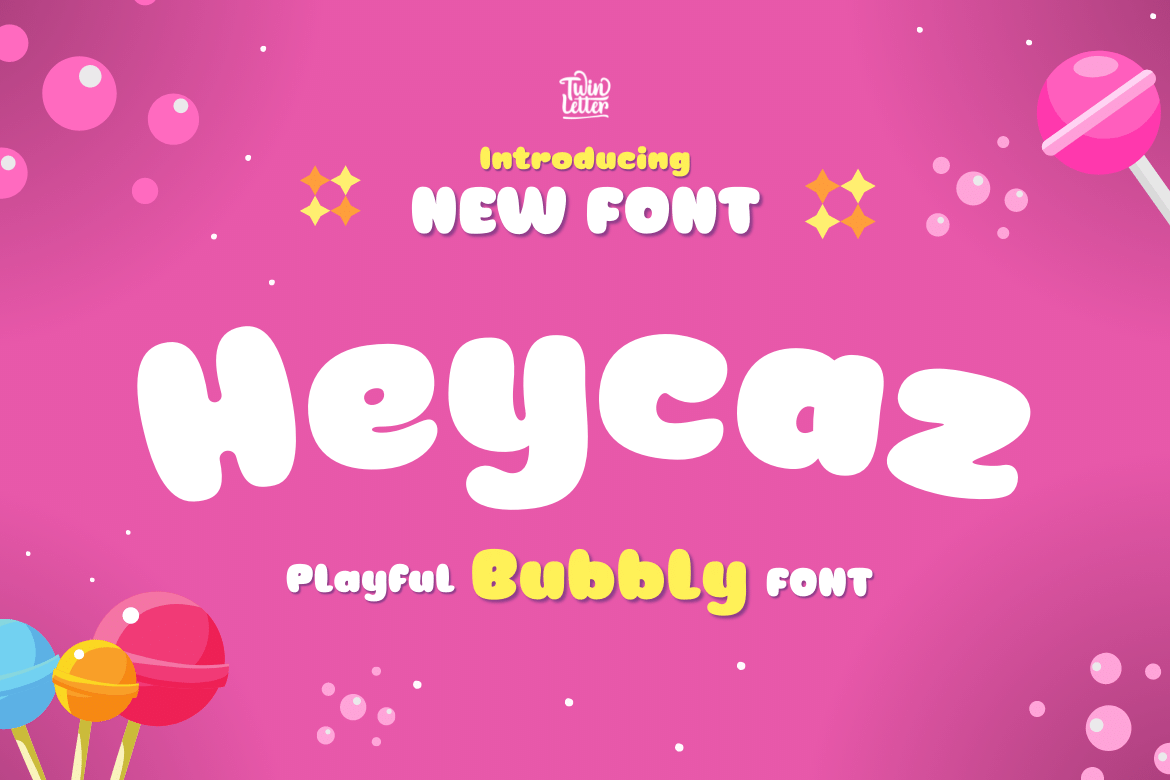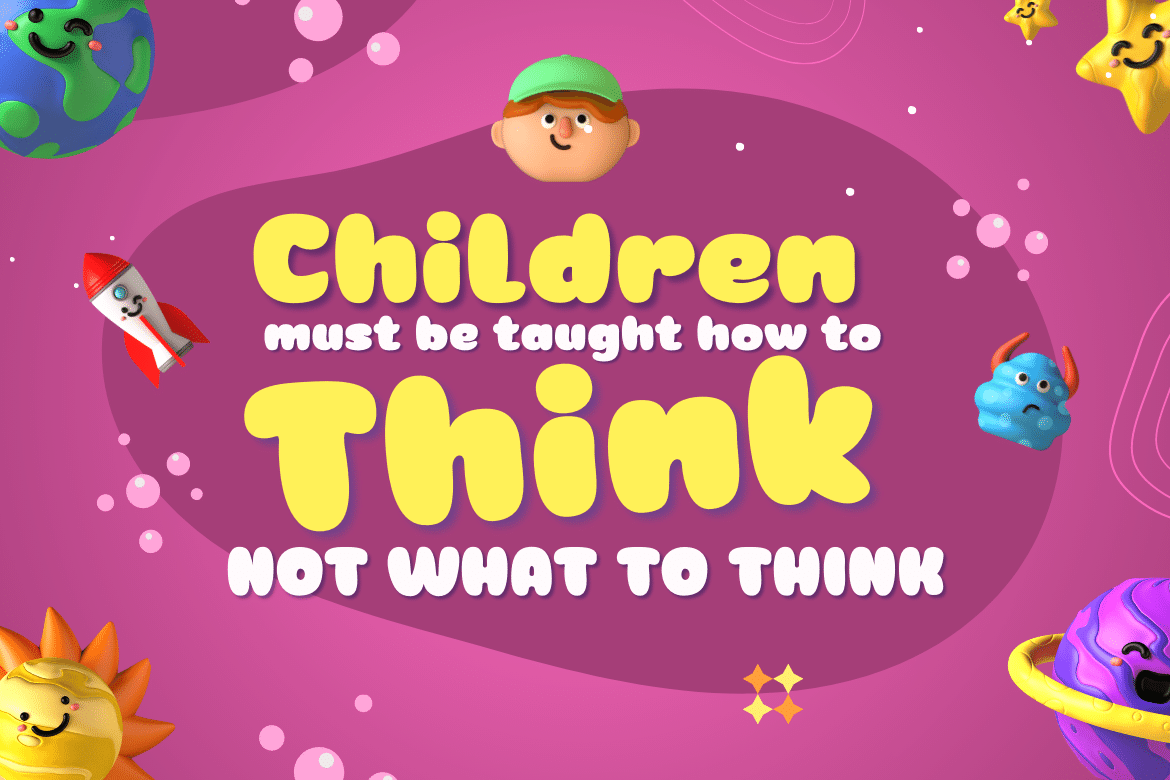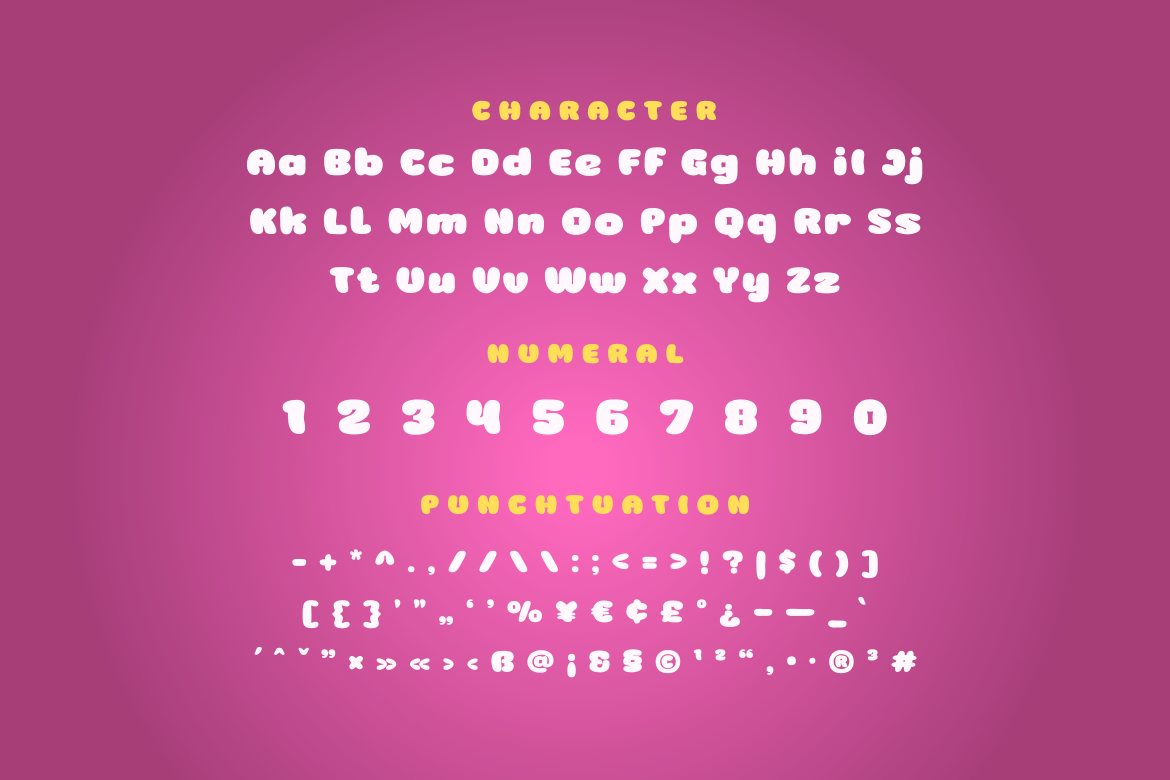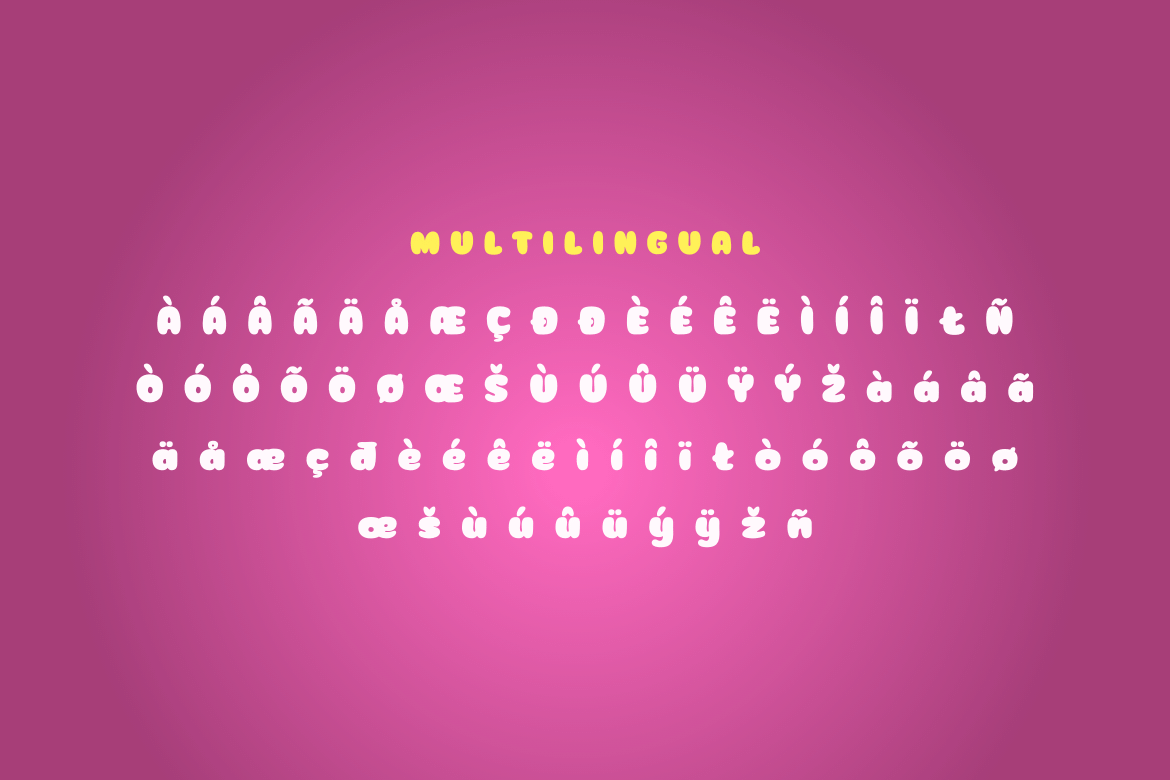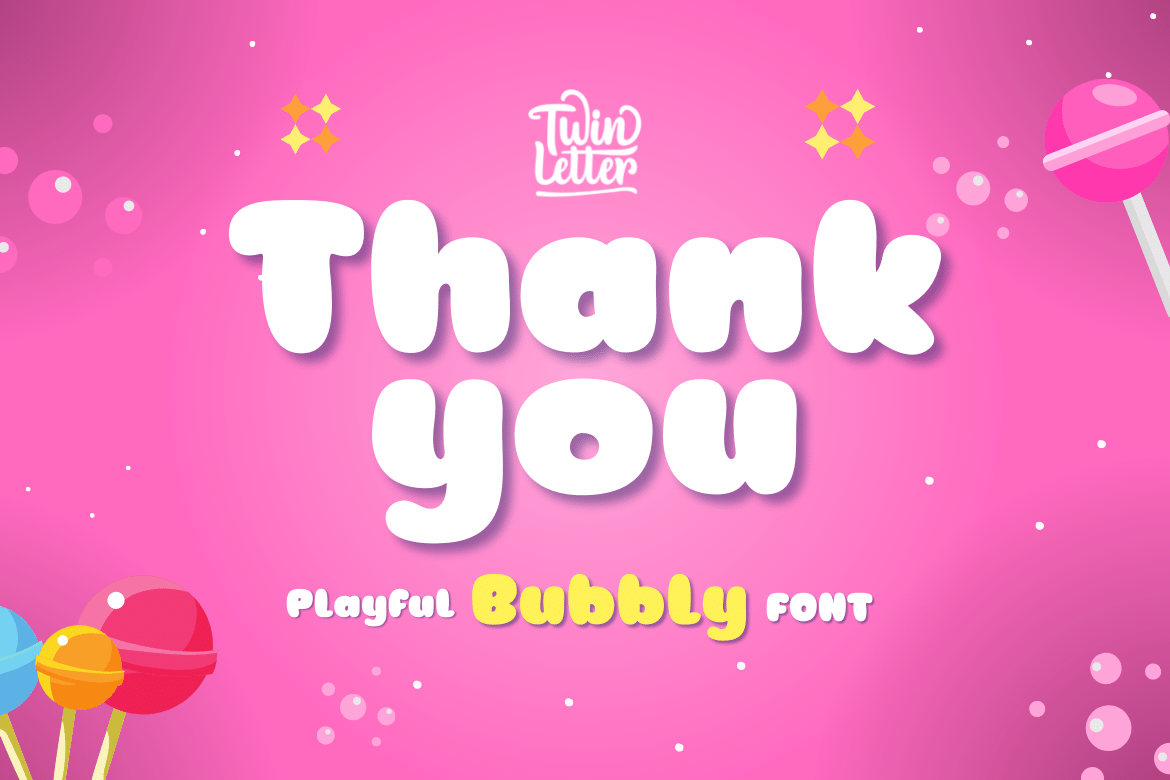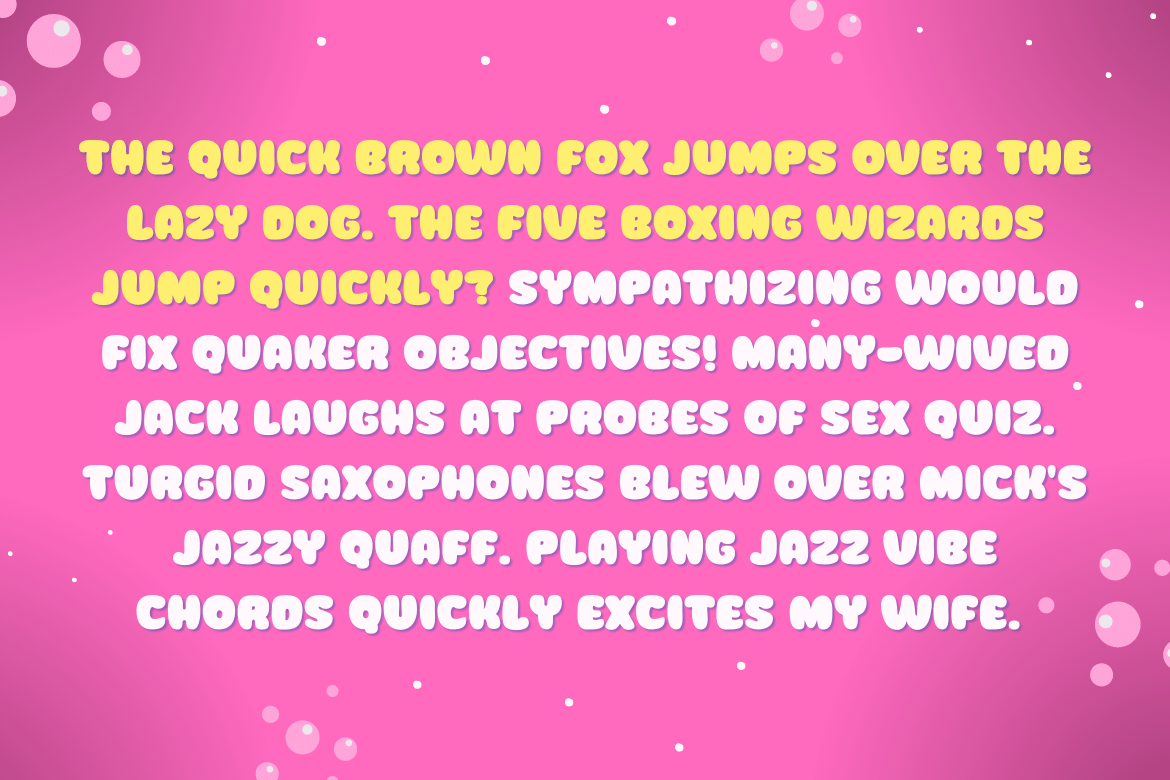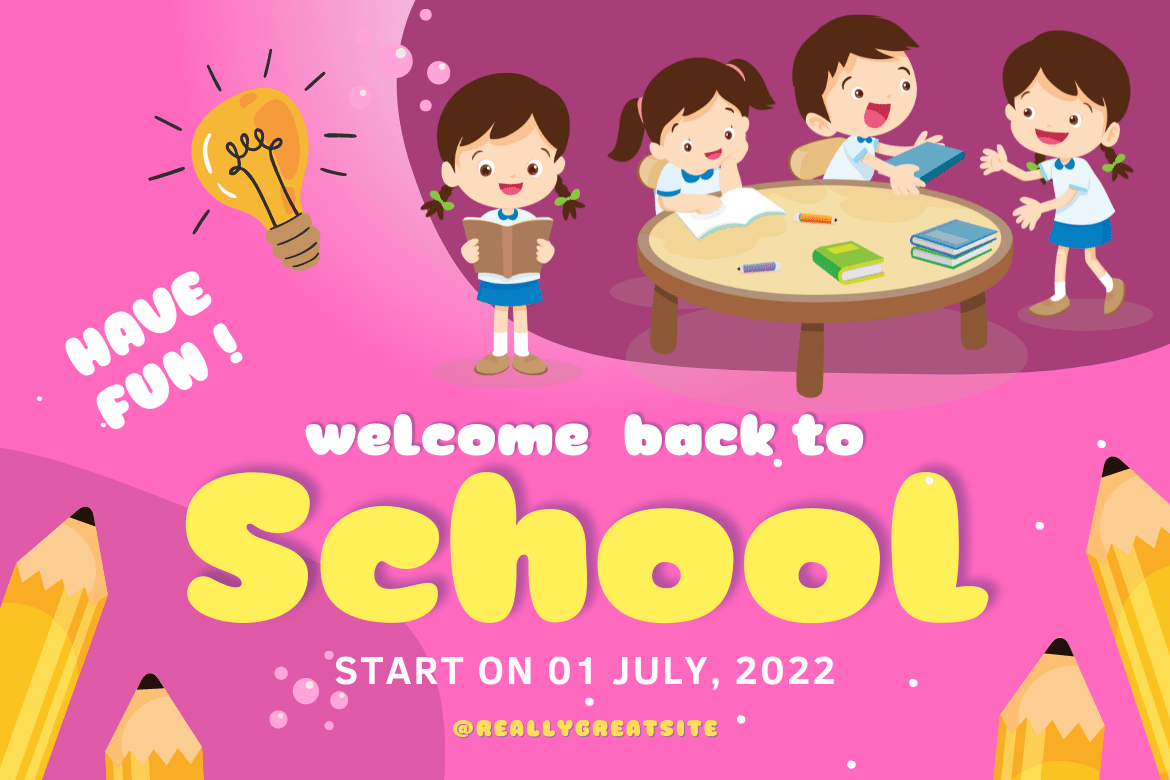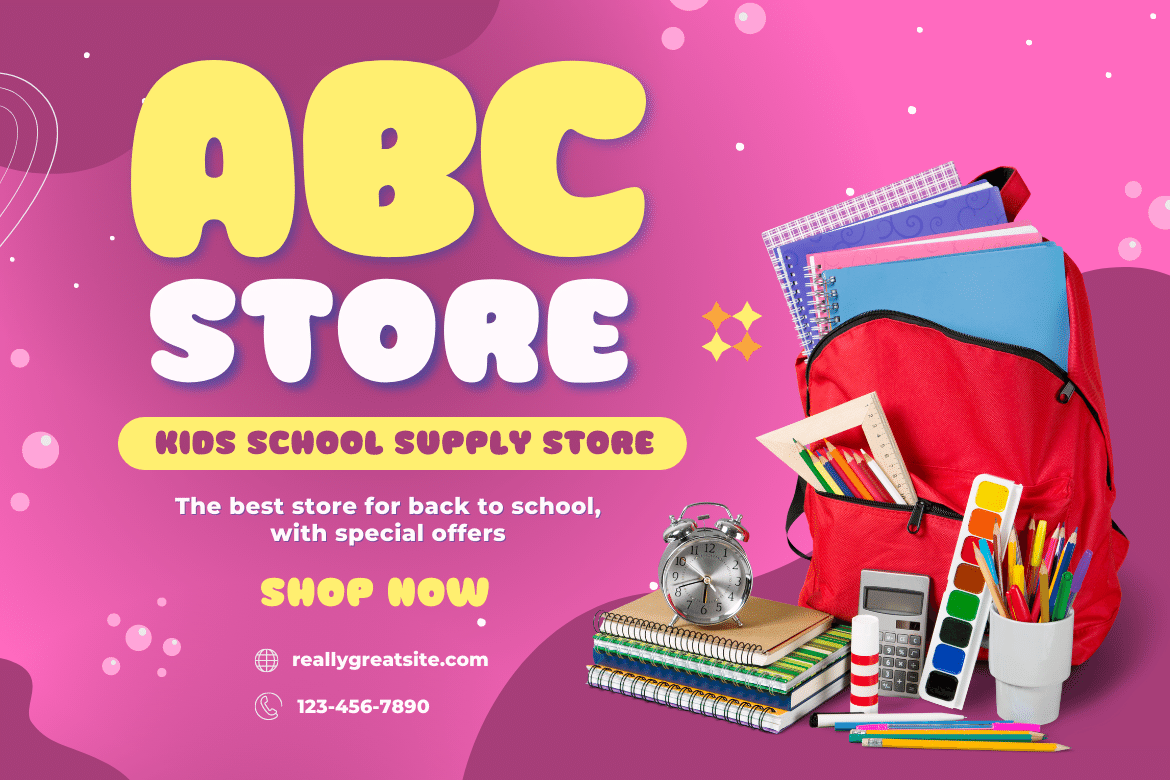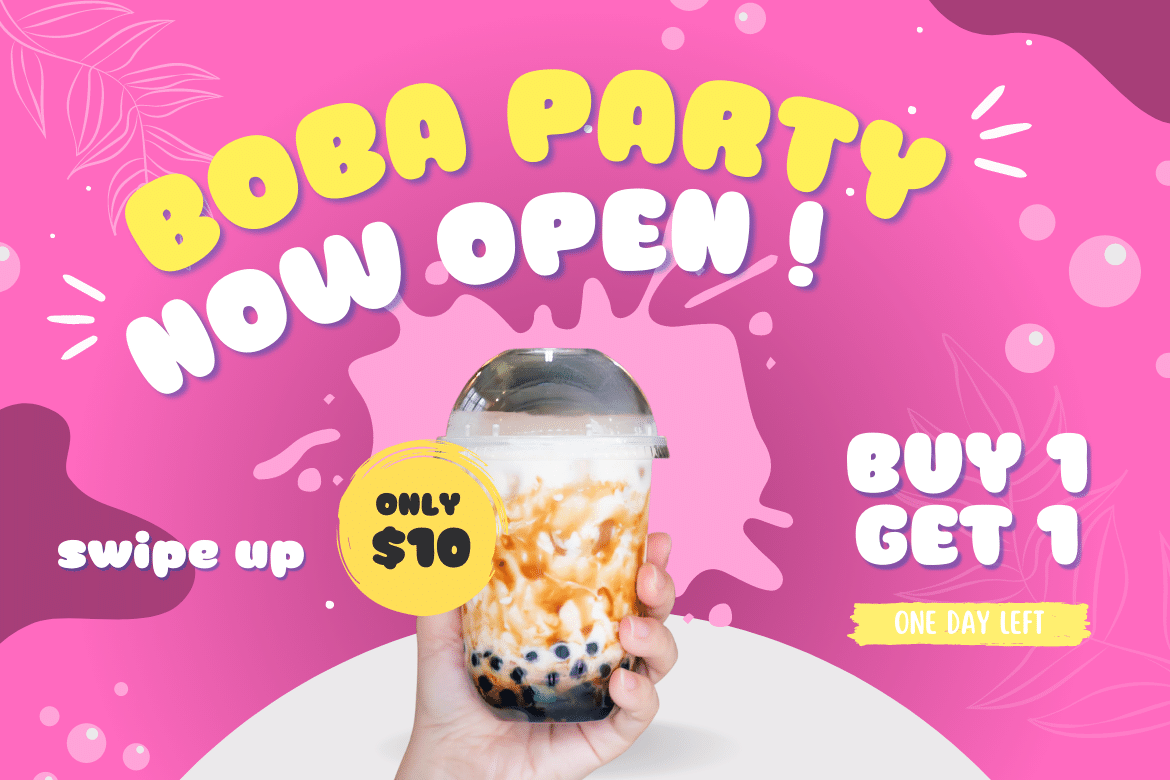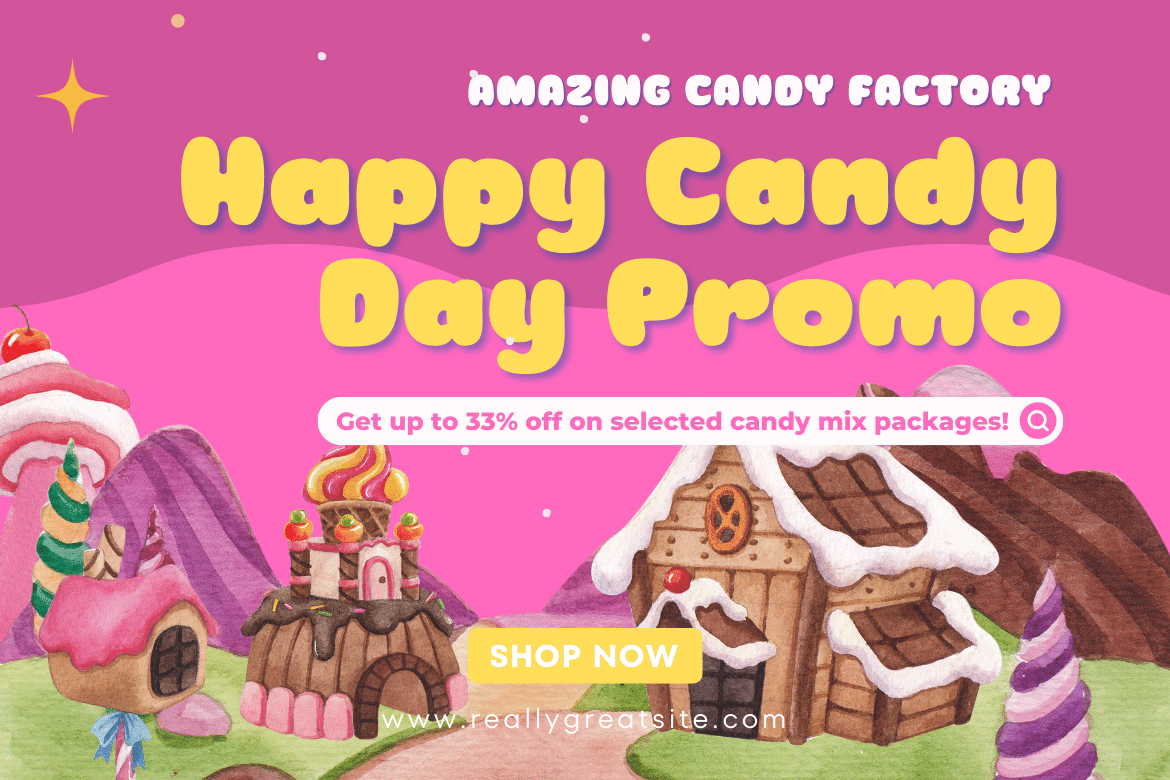
Heycaz
Heycaz is a quirky and cute font designed with passion and fun.
This font is very suitable for a variety of your projects, use this font to get a beautiful and captivating visual impression that can captivate the entire audience.
• Fonts include multilingual support for; Afrikaans, Albanian, Croatian, Czech, Danish, Dutch, English, Estonian, Finnish, French, German, Hungarian, Italian, Norwegian, Polish, Portuguese, Slovak, Slovenian, Spanish, Swedish